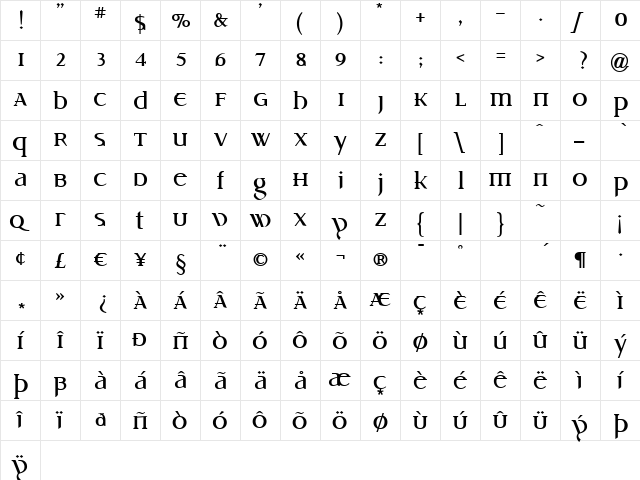
Idiosynoptium1.5 SB Regular
Design Context for Idiosynoptium1.5 SB Typeface
Idiosynoptium1.5 SB is a composed and adaptable typeface that performs quietly and consistently across a wide range of design contexts.